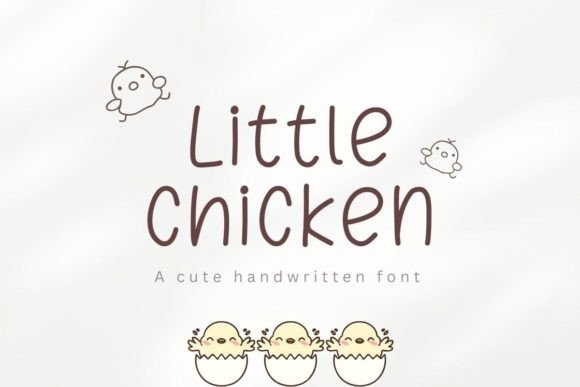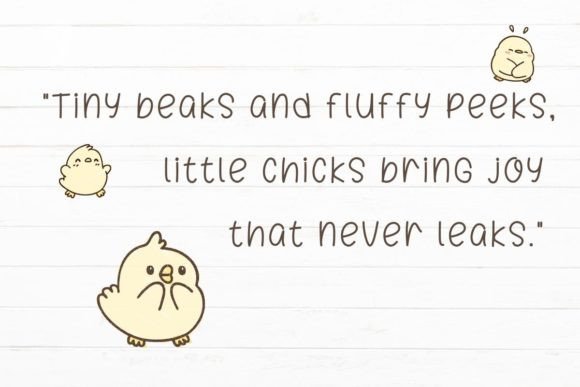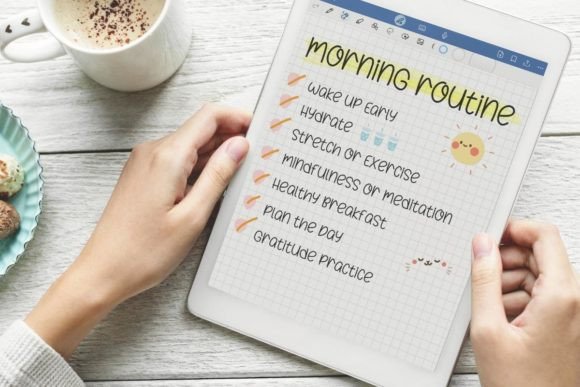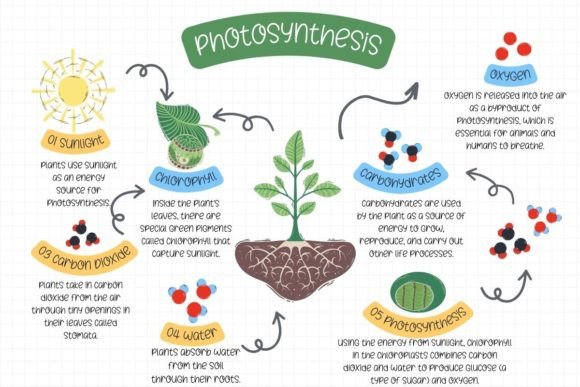
About the Little Chicken Font
Discover the charm of Little Chicken Font. This font is a perfect blend of modern aesthetics and classic appeal. Little Chicken Font is a simple, neat handwritten font, perfect for digital note-taking. You can use this font in various projects – blog posts, logos, branding, digital planners, invitations, greeting cards, planners, photo albums, decorations, and much more.
Its informal, friendly nature makes Little Chicken Font ideal for projects requiring a personal touch, such as branding for artisanal food products, children’s books, or wedding stationery. It excels in headlines, short text blocks, and logos where its handwritten charm shines. However, its legibility suffers in extended body text or UI elements; the informal style is not suitable for applications demanding high readability across large amounts of text.
Pairing Little Chicken Font with a clean sans-serif like Open Sans for body copy provides a strong contrast and maintains readability. For a more playful aesthetic, consider pairing it with a geometric sans-serif such as Futura, or for a more elegant feel, a delicate serif like Garamond could complement its handwritten quality.
The font’s core personality is undeniably friendly and approachable, conveying a sense of warmth and handcrafted authenticity. Avoid using it in contexts requiring seriousness or professionalism; its informal character might undermine such messaging.